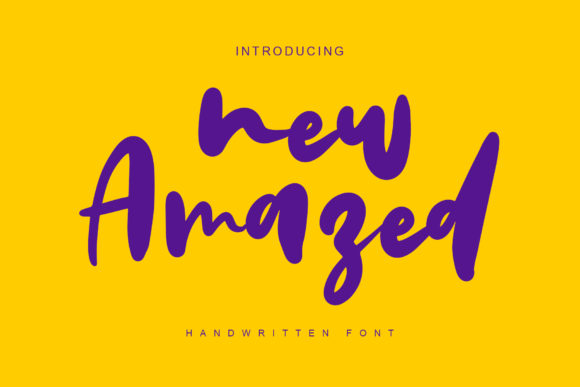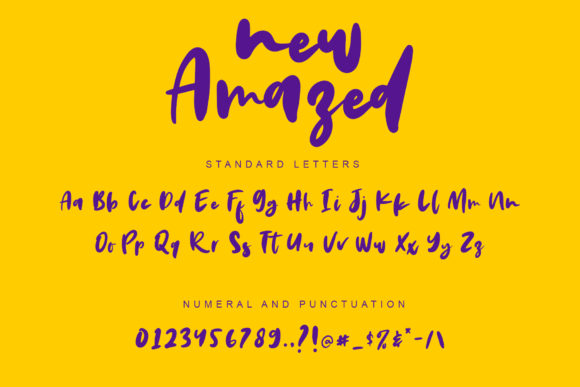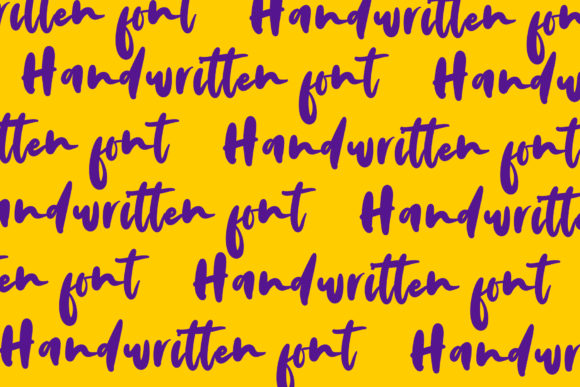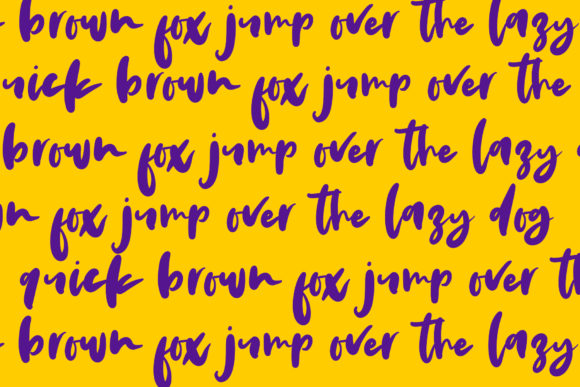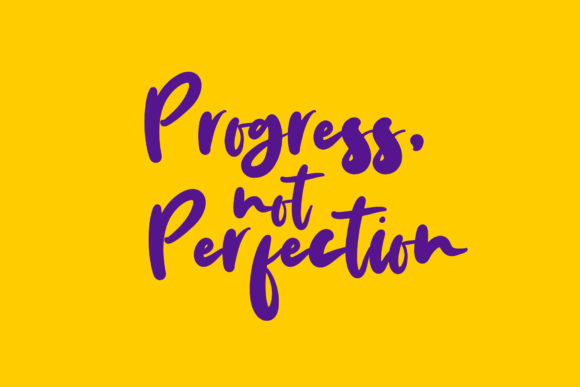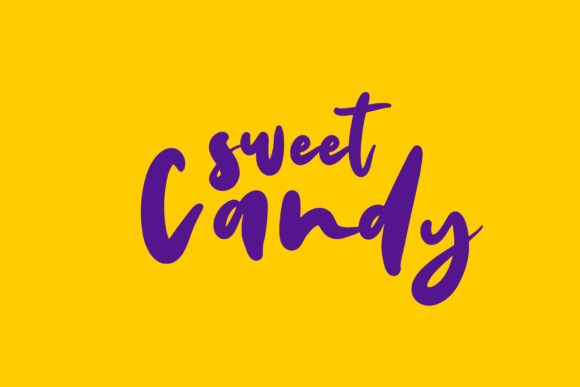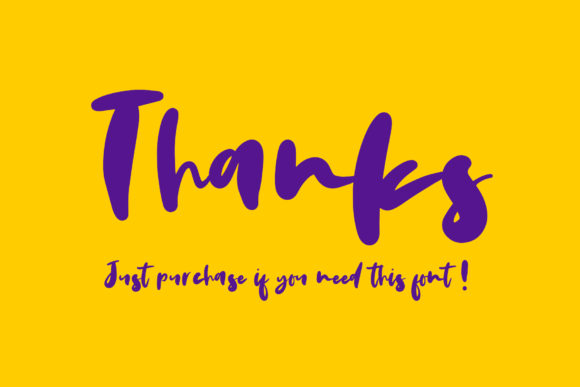
New Amazed Font
New Amazed embodies fun, quirkiness and authenticity. This enchanting handwritten font will turn any creative idea into a true standout!